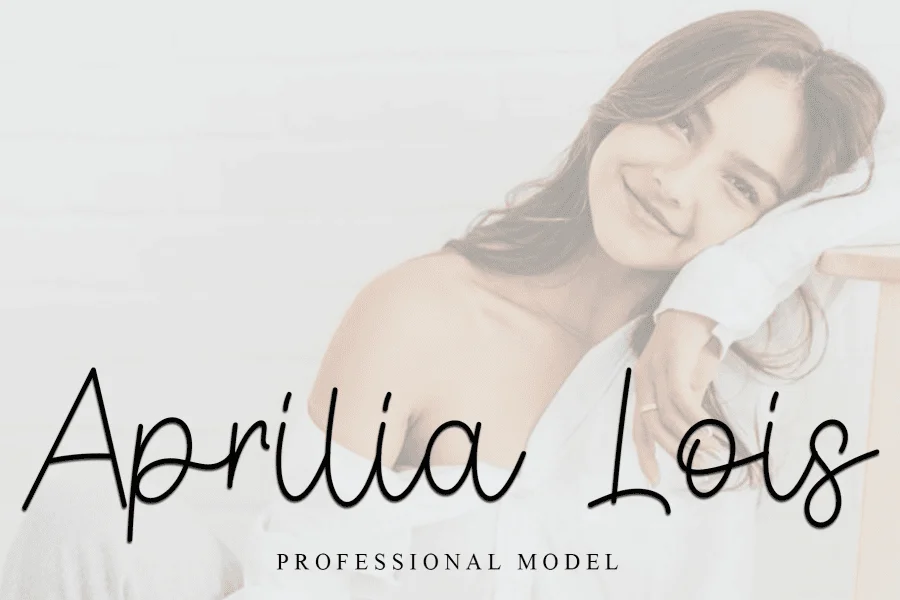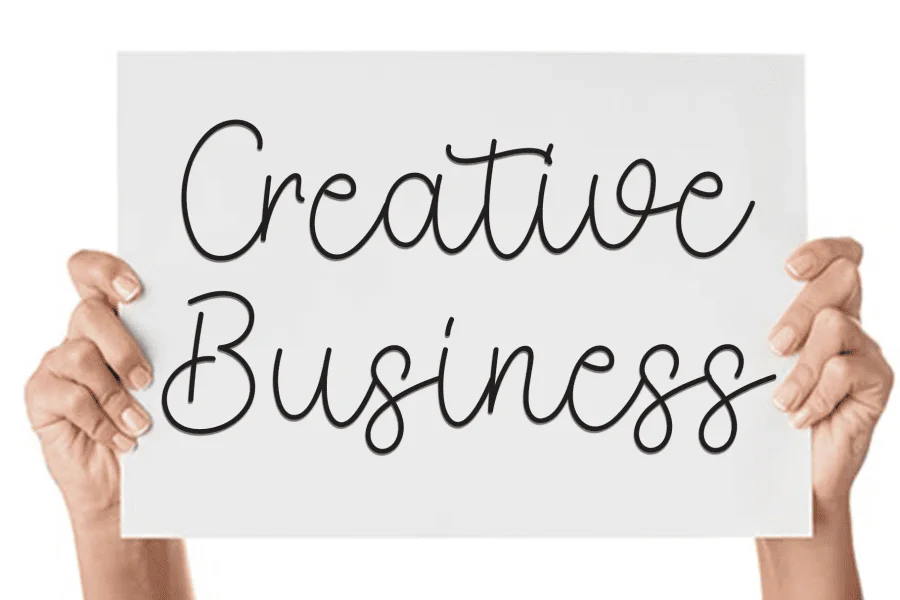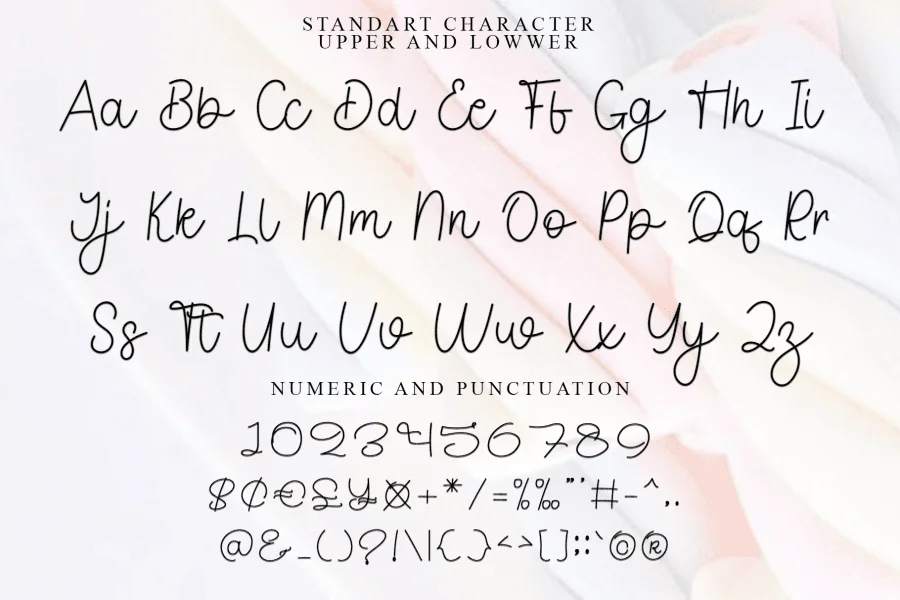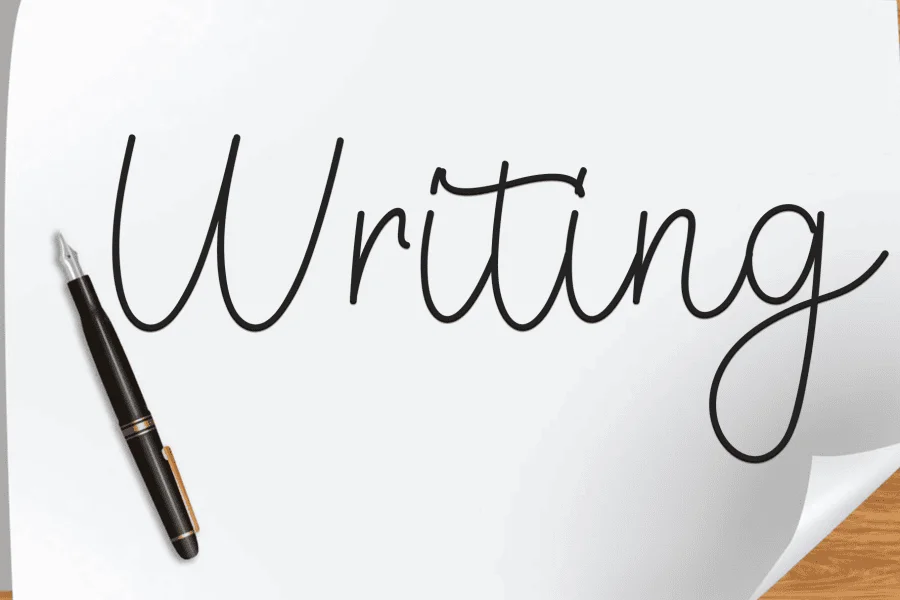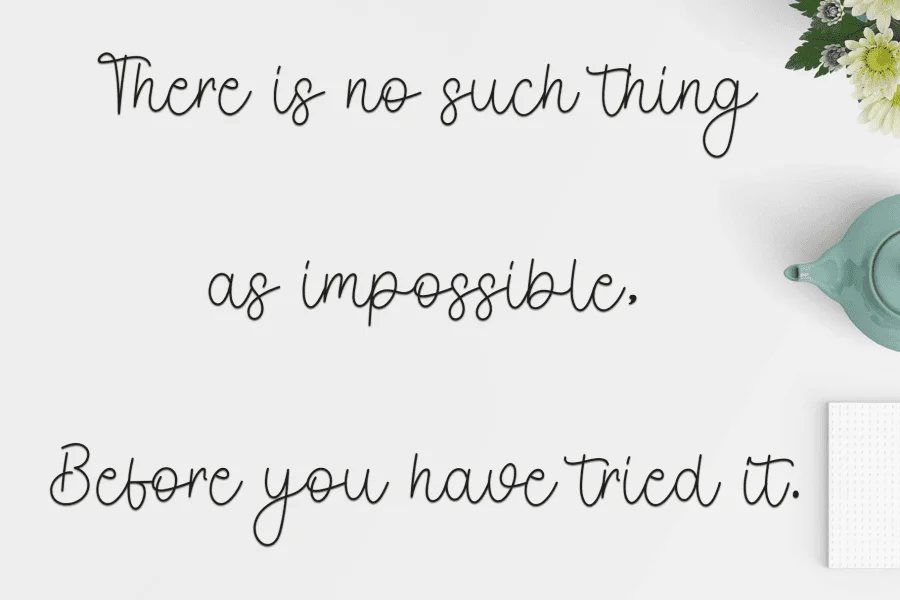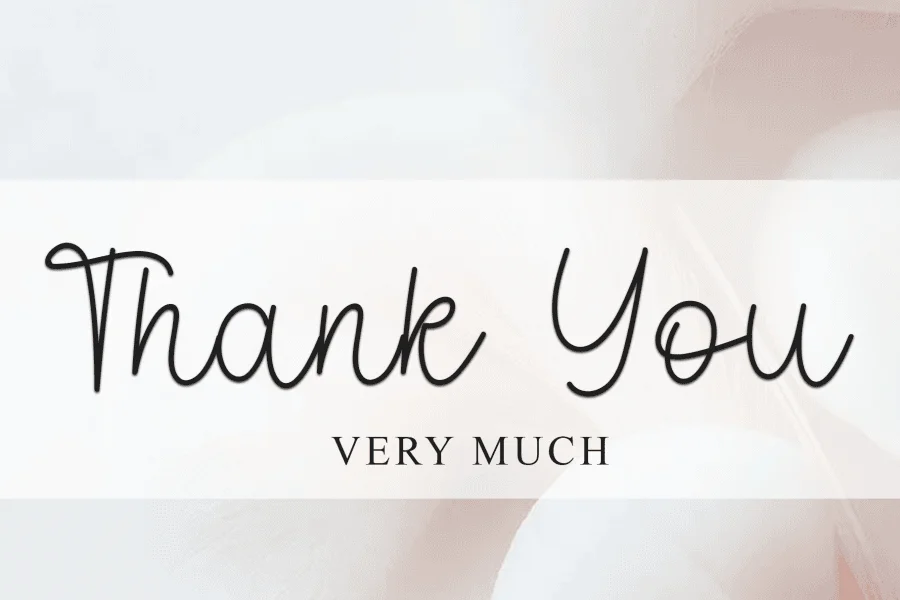
Sunshine highland is a modern handwritten script typeface that exudes an elegant, airy, and gentle tone. Characterized by its monoline construction and delicate, flowing rhythm, the typeface features generous loops and high-reaching ascenders that create a light and spacious texture. The letterforms are loosely connected with graceful, sweeping entry and exit strokes, giving the text a natural, handwritten quality that feels personal and sophisticated without being overly formal.
This typeface is perfectly suited for projects requiring a touch of refined warmth and intimacy, such as wedding stationery, boutique branding, and elegant cosmetic packaging. Its clean, legible script style also makes it an excellent choice for lifestyle editorial layouts, inspirational quote graphics, and personalized social media content where a soft, human touch is desired.